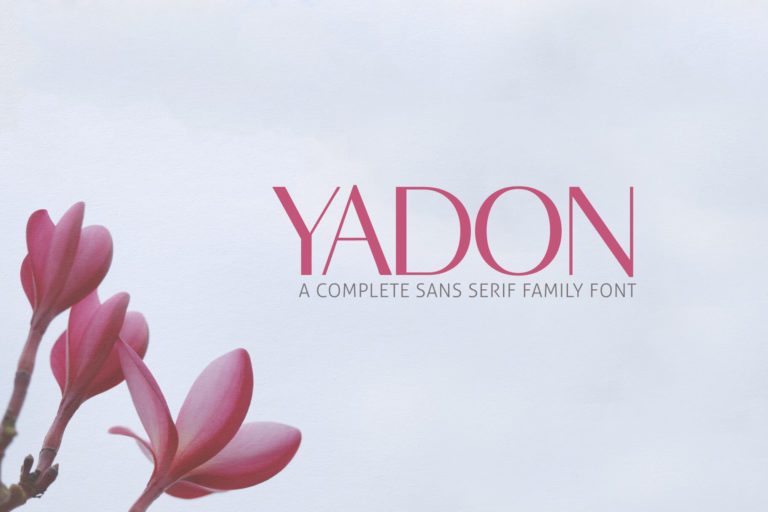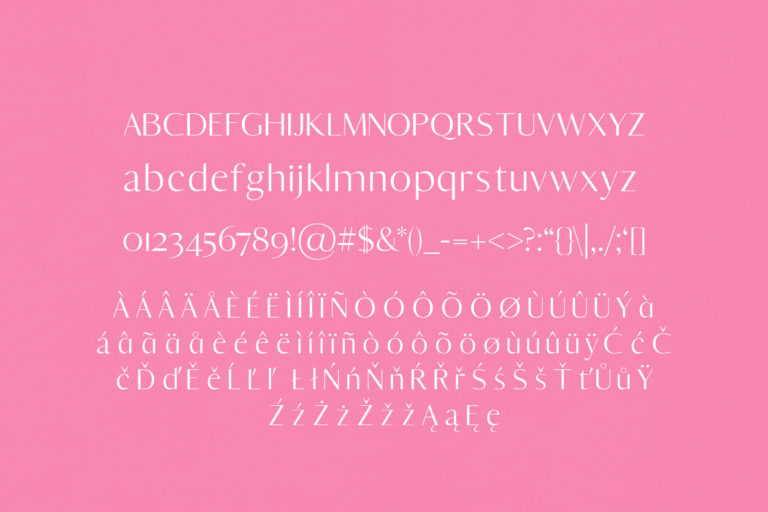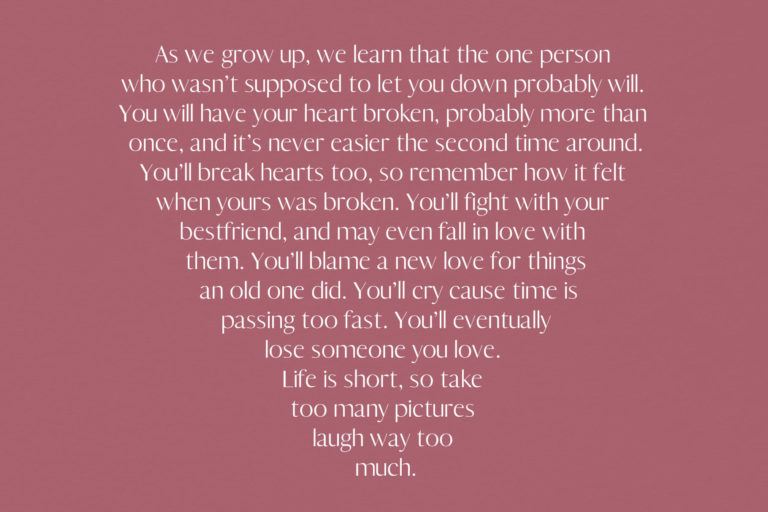
- Yadon Sans Serif Fonts Family Pack
Yadon Regular
Yadon Light
Yadon Extra Expanded
Yadon Bold
Yadon Distorted
Yadon Thin
Yadon Black
Yadon Outline
Yadon Medium
Yadon Sans Serif Fonts Family is a unique and beautiful fonts set consisting of 9 weights. It is perfect for creating creative displays with an art-deco touch, and it is ready to use. This font set can be used to make your designs look modern and clean. It is ideal for logos, headlines, banners, templates, and more. You can achieve a stylish look by using all caps with a wide-set spacing, or create something timeless by using capital and lowercase letters. Yadon Sans Serif Fonts will add a touch of elegance to any design.
Yadon Font Features:
- Uppercase Letters
- Lowercase Letters
- Non English Characters ( Latin Supplement + Latin Extended A)